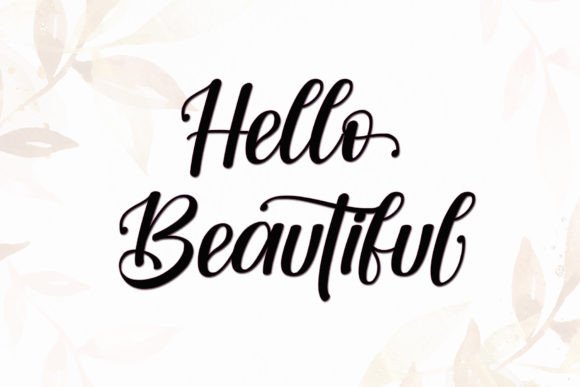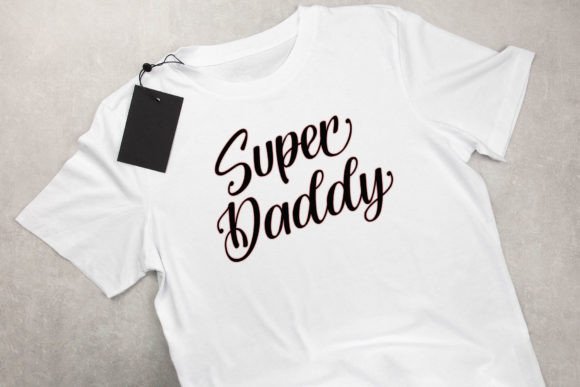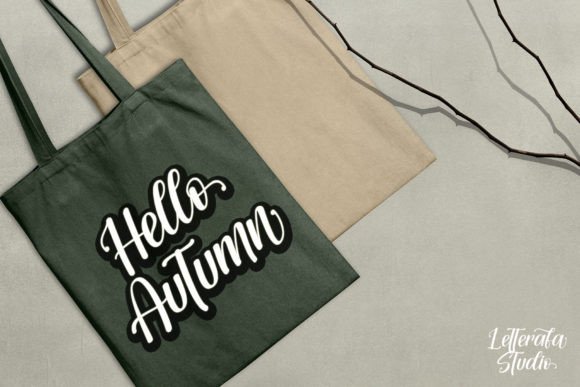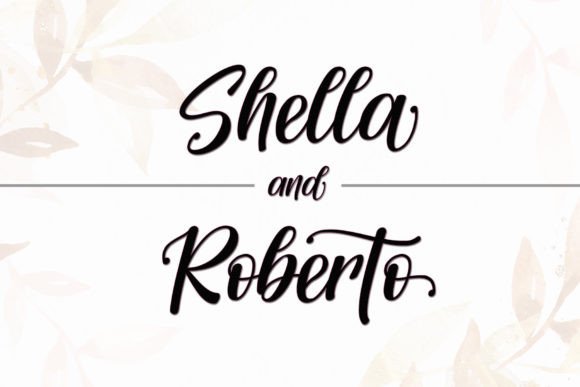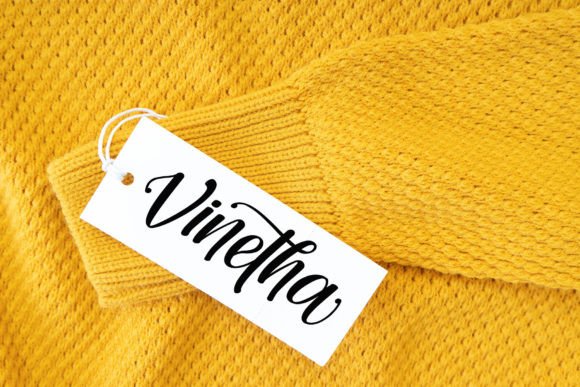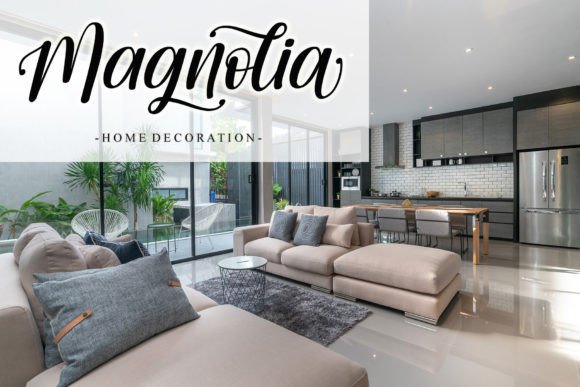
The Art of Elegant Typography: Introducing the Bristhonie Font
As designers, we’ve all been there – staring at a blank page, trying to find the perfect font to bring our creative vision to life. It’s that moment when the right typeface can elevate your design from ordinary to extraordinary. For me, it was the moment I discovered the Bristhonie Font – a romantic and graceful calligraphy typeface that danced along the baseline, leaving me in awe.
The Bristhonie Font is more than just a pretty face; it’s a versatile and expressive tool that can be used for a wide range of applications, from logos and wedding invitations to headings and signage. With its PUA encoding, designers can access all of the glyphs and swashes with ease, making it a valuable addition to any design toolkit.
Bristhonie Font Key Features
- Unique Characteristics: Bristhonie Font features a unique blend of modern and vintage elements, with a distinctive flair for handwritten text
Bristhonie Font Review
Overall, I think Bristhonie Font is a decent addition to any font collection, but it has its strengths and weaknesses.
- Unique Character: Bristhonie Font has a distinctive feel that sets it apart from more generic fonts.
- Legibility: The font is highly legible, even at smaller sizes, making it a great choice for body text.
- Expressive: The font’s irregularities give it a certain charm, making it suitable for creative projects.
- Readability at Large Sizes: While Bristhonie Font is legible at smaller sizes, it can become a bit cluttered and difficult to read at larger sizes.
- Lack of Consistency: The font’s irregularities can sometimes make it feel inconsistent, which may be jarring for some users.
- Not Suitable for Headings: Due to its irregularities, I wouldn’t recommend using Bristhonie Font for headings or titles.
Bristhonie Font is a solid choice for creative projects or body text, but it may not be the best fit for headings or titles. With some careful usage, it can add a unique touch to your designs.
The Bristhonie font is ideal for creative and modern designs. Use it for headings, titles, and other text elements where you want to add a touch of elegance and sophistication. Tips for getting the most out of the font include using it in combination with other modern fonts, adjusting the font size and color to create contrast, and using it in bold or italic styles to add emphasis.